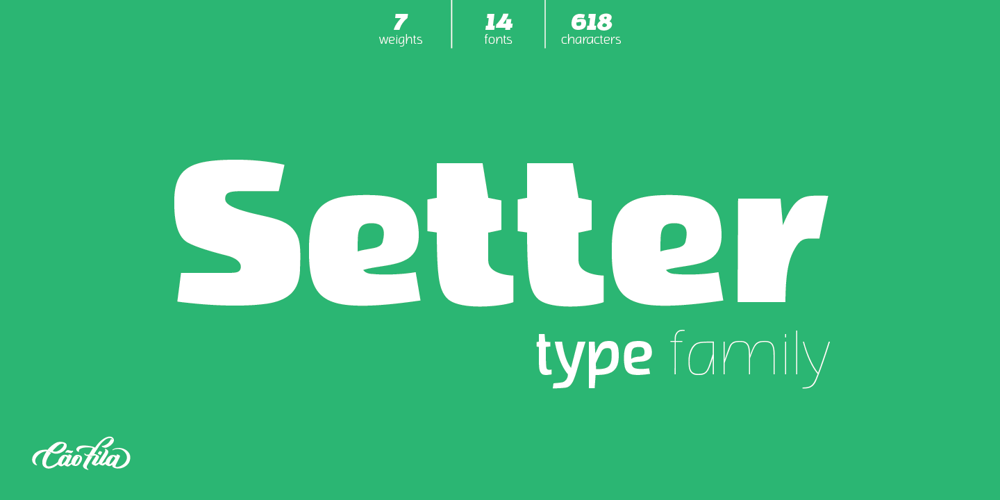
Setter
Setter font
Setter Font Family was designed by Marcelo Sodré and published by Cão Fila. Setter contains 14 styles and family package options. Setter is a type family that stands between geometric and humanist styles. Its unique features and large x-height gives it a modern look. Good for small text blocks, headlines and logos.Vast latin character set: Central, Southeastern and Western Europe. Vietnamese, Pinyin and Pan African Latin. Math and Currency.Enjoy it!